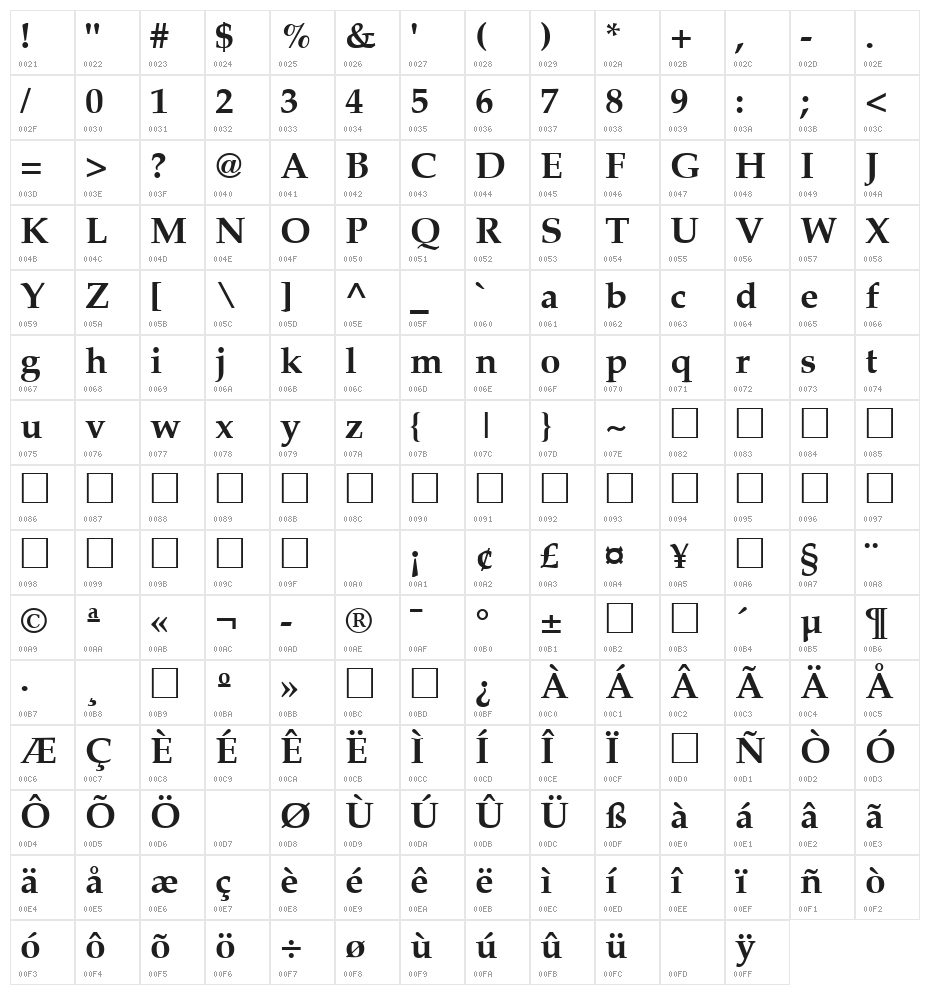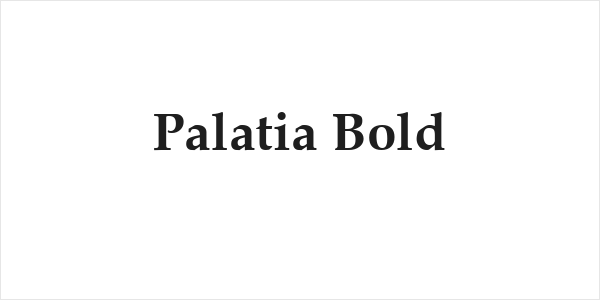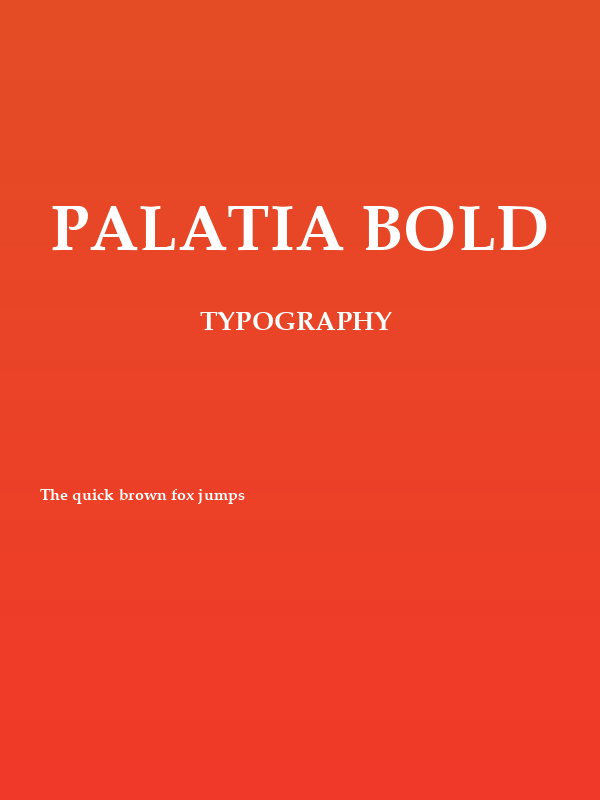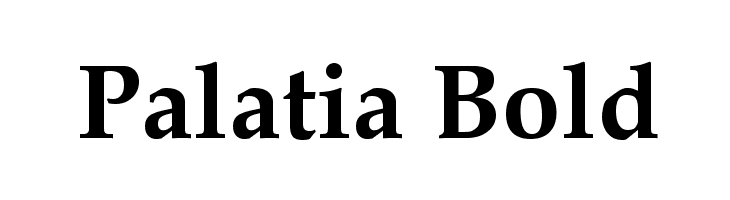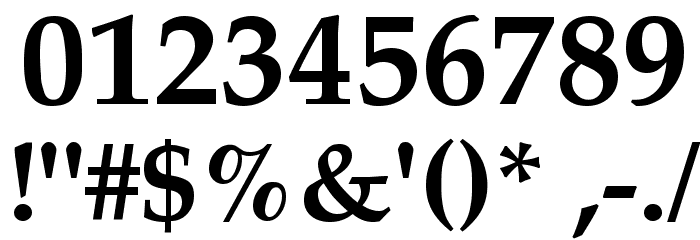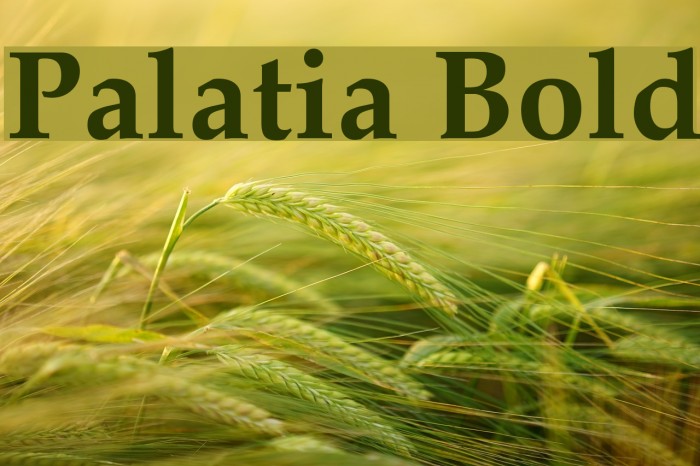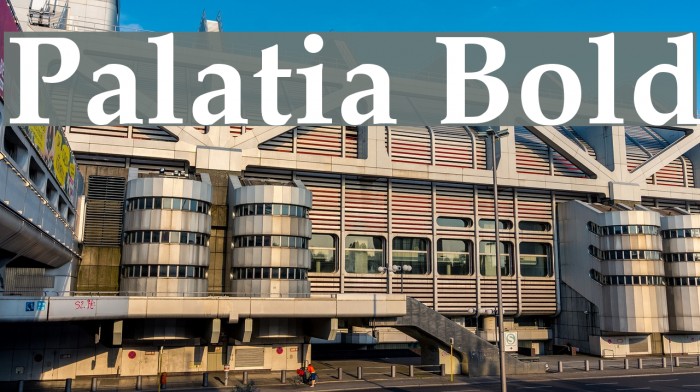
Palatia Bold Font
Palatia Bold Description
This font features a classic serif design with strong, bold strokes that give it a commanding presence. The serifs are pronounced and add a touch of elegance, making it suitable for formal and traditional applications. The uppercase letters are well-proportioned, with a slight contrast between thick and thin strokes, enhancing readability. The lowercase letters maintain a consistent style, with rounded edges that soften the overall appearance. Numerals are clear and distinct, ensuring they stand out in any context. Special characters are thoughtfully designed, maintaining the font's cohesive look.
| Overall Style | Classic |
| Use Case | Headlines, Logos, Formal documents |
| Proposed Projects | This font is perfect for book covers, formal invitations, certificates, and branding materials that require a touch of sophistication. |